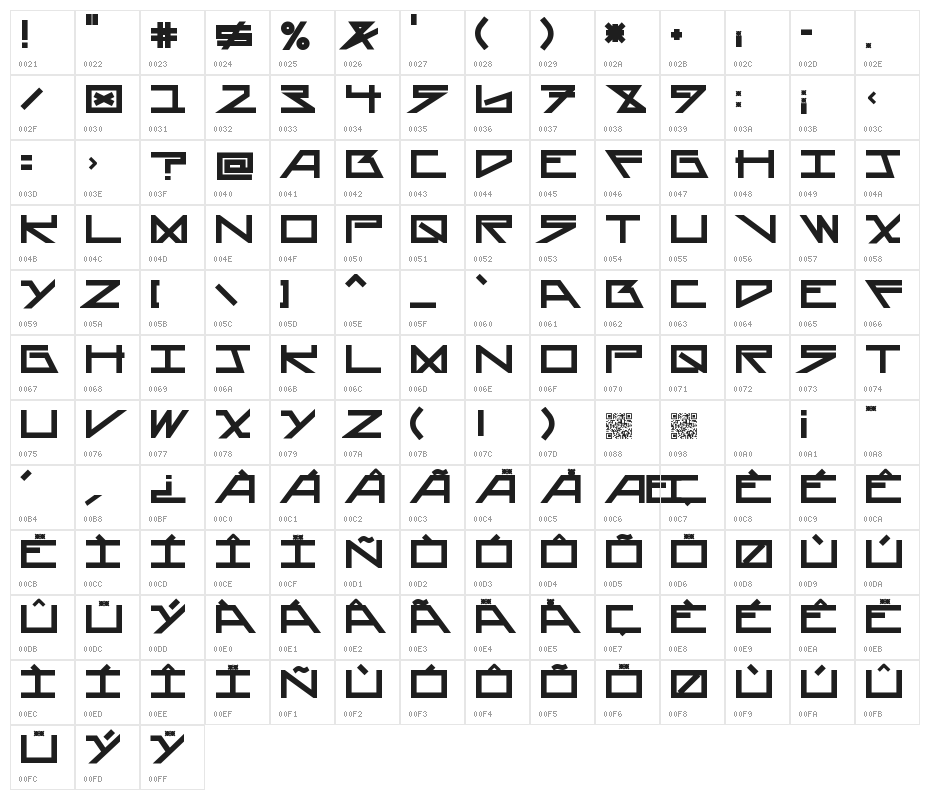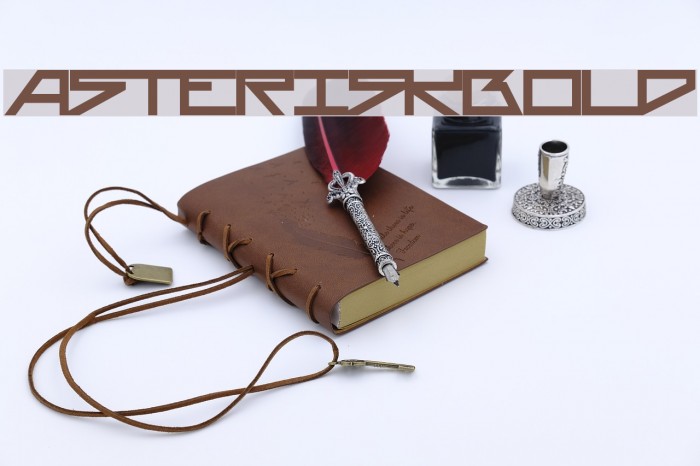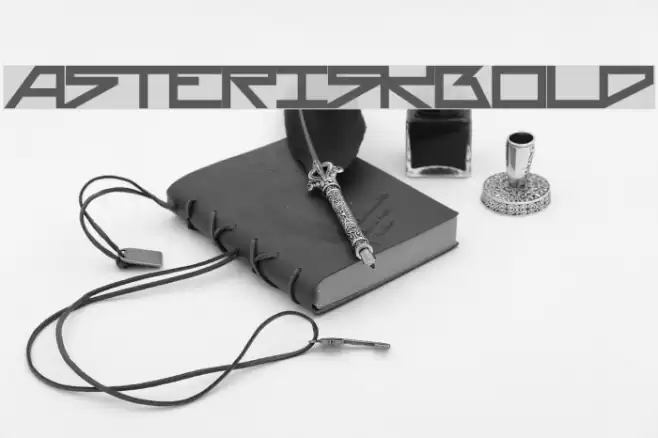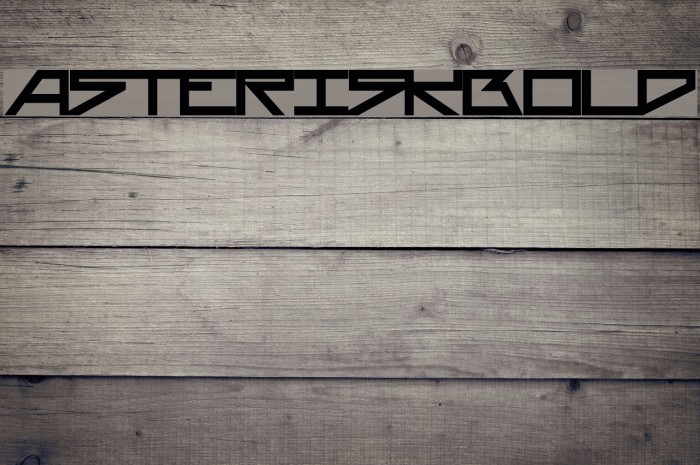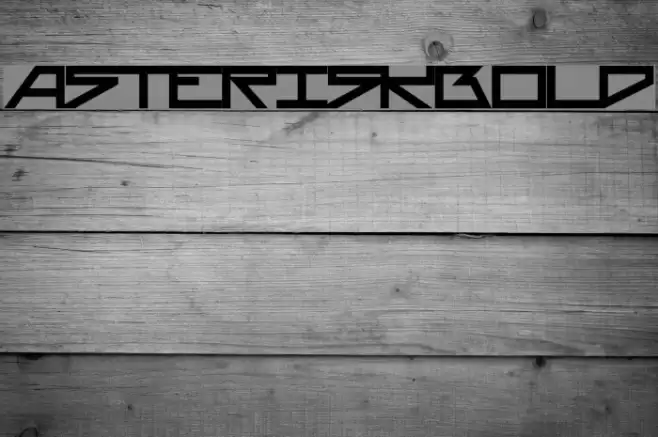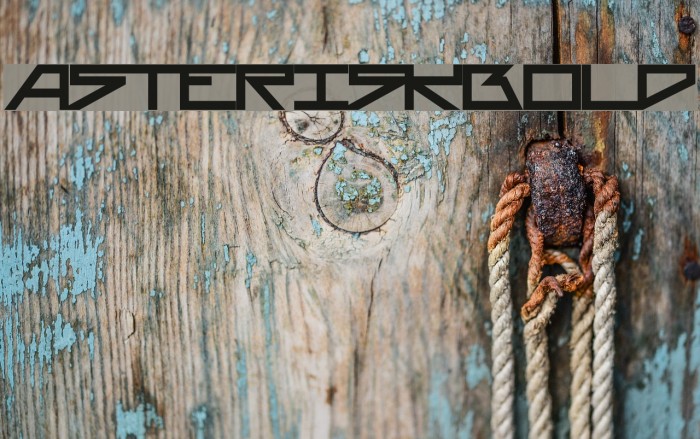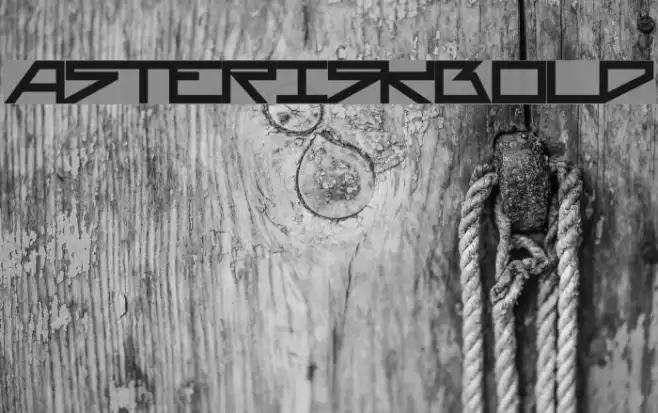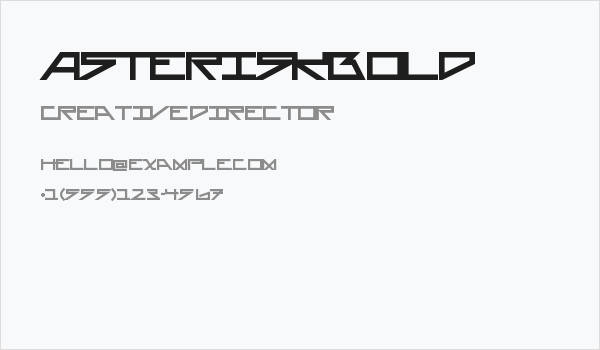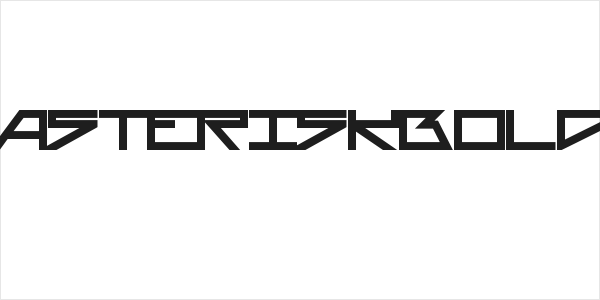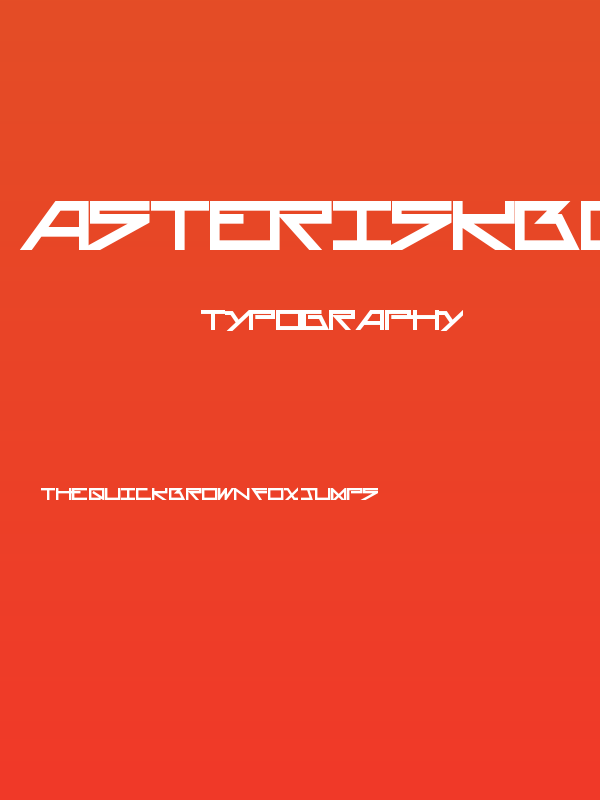
AsteriskBold Font
AsteriskBold Description
This font features a bold, geometric design with sharp angles and a futuristic aesthetic. The characters are constructed with thick lines and angular shapes, giving them a distinct, edgy appearance. The uppercase and lowercase letters maintain a consistent style, with a strong emphasis on diagonal lines and pointed edges. The numbers and special characters follow the same design principles, ensuring a cohesive look across all elements. This font is highly stylized, making it ideal for projects that require a modern and dynamic visual impact.
| Overall Style | Futuristic, Modern |
| Proposed Projects | Ideal for sci-fi themed designs, video game titles, posters, and branding that requires a modern, edgy look. |